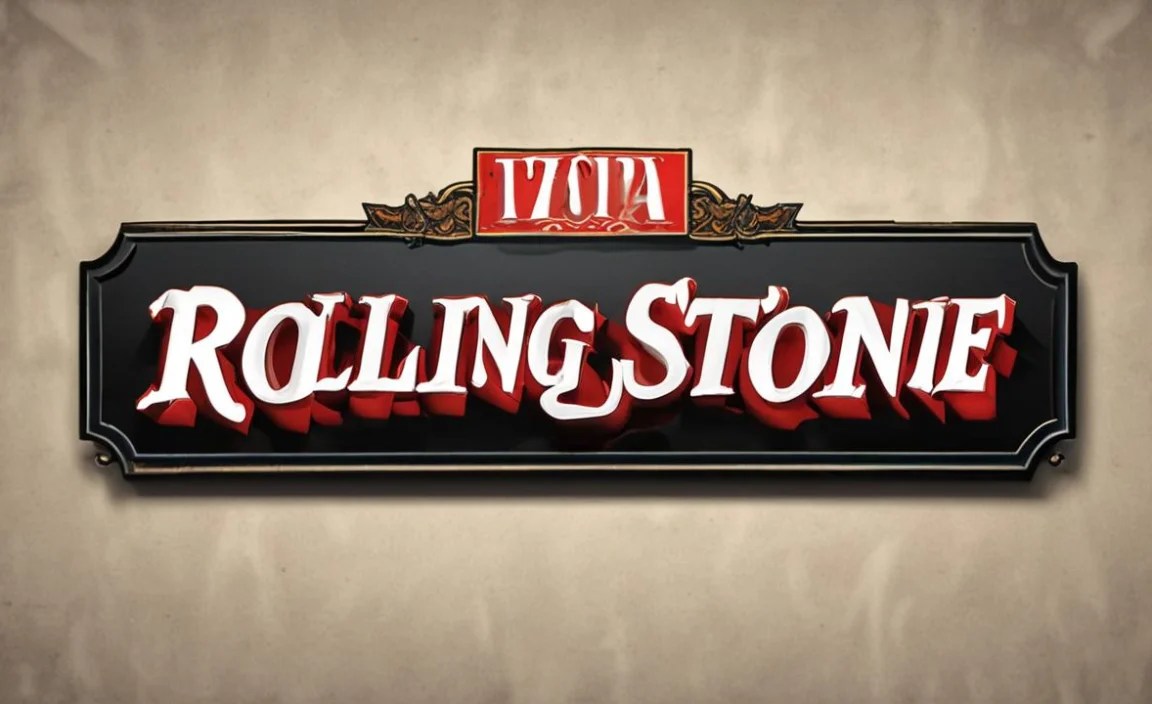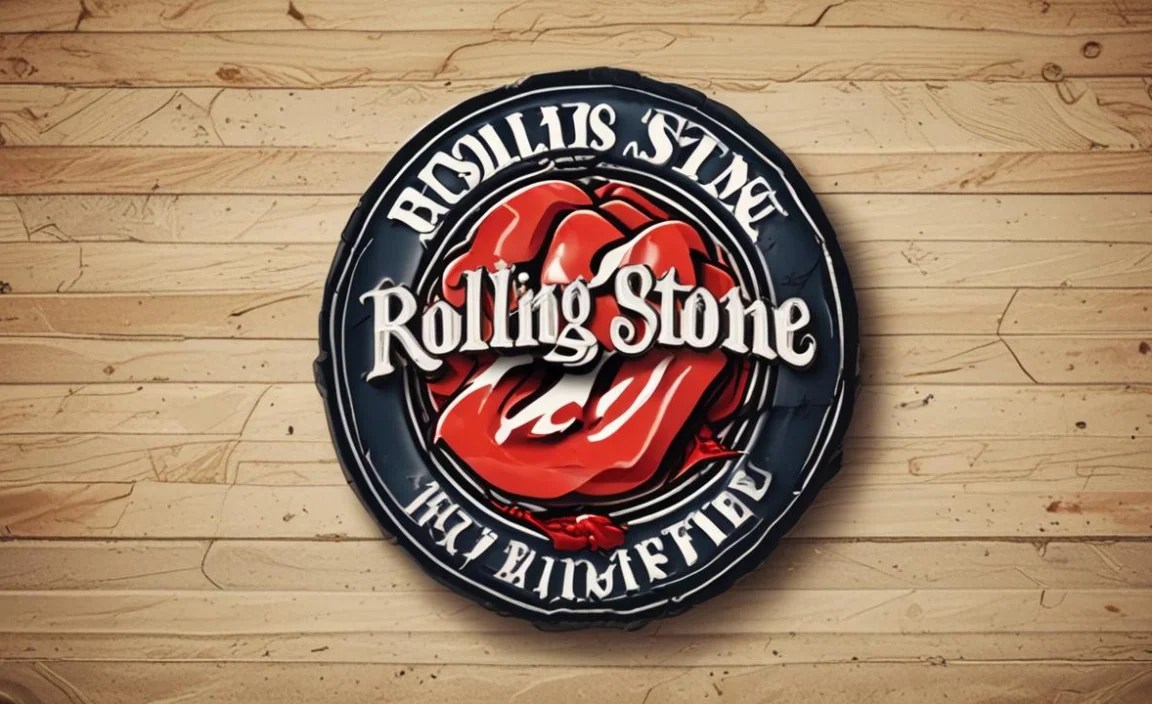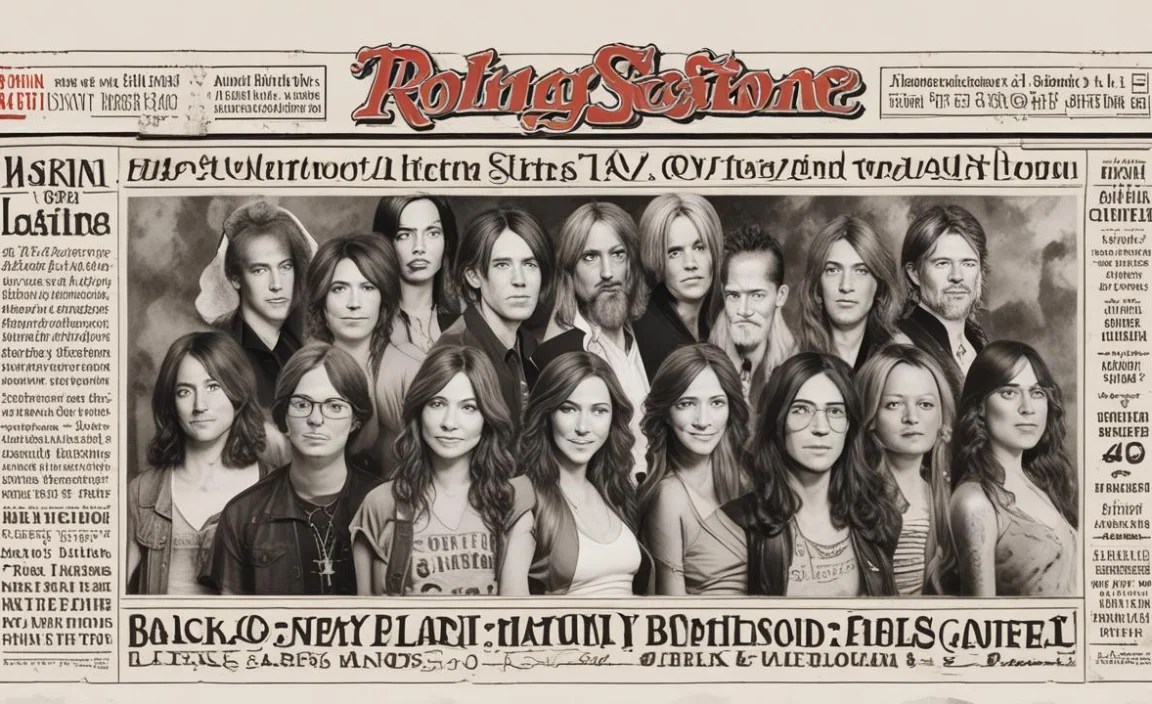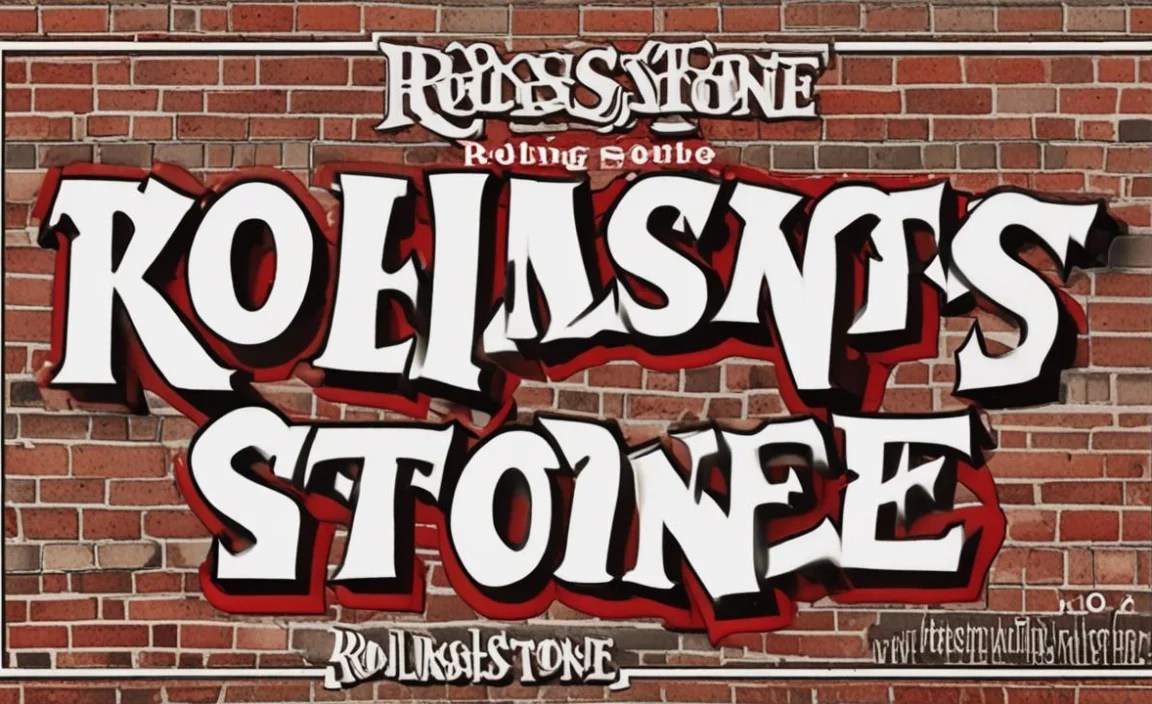
The Rolling Stone font is iconic and instantly recognizable, capturing the essence of rock and roll with its bold, decorative design. It features curled lettering, which embodies the rebellious and artistic spirit of the 1960s and beyond.
Often associated with the famous music magazine Rolling Stone, this font style has become a symbol of music, culture, and a countercultural movement. Whether you’re designing a logo, a poster, or a retro-themed project, the Rolling Stone font brings a unique and memorable flair.
| Name | Rolling Stone (Royal Acidbath) |
| Style | Display |
| Designer | Sharkshock |
| Type | Hand-lettered Script |
Rolling Stone Font’s Family Includes
- Royal Acidbath Regular
- Royal Acidbath Bold
- Royal Acidbath Italic
- Royal Acidbath Bold Italic
- Royal Acidbath Condensed
- Royal Acidbath Condensed Bold
Where Rolling Stone Font Is In Use
The Rolling Stone font is ideal for projects that need to evoke a sense of nostalgia, music, and counterculture. Its distinctive style makes it suitable for a variety of design applications. Notable uses include:
- Magazine masthead
- Article headlines
- Cover titles
- Merchandise
- Promotional materials
- Website headers
- Social media graphics
- Event branding
- Album reviews
- Music charts and lists
Rolling Stone Font FAQs
1. When Was The Rolling Stone Font Introduced?
The Rolling Stone logo, which inspired the Rolling Stone font, was designed by Rick Griffin in 1967, coinciding with the launch of the magazine. The font has since been iconic and enduring, influencing many similar typeface designs.
2. What Free Font Is Closest To Rolling Stone Font?
While the exact Rolling Stone font is proprietary, “Royal Acidbath” by Sharkshock is often considered a close alternative. Other free alternatives that offer a decorative and bold script style may include fonts like “Lobster” and “Pacifico.
3. What Are The Different Versions Of Rolling Stone Font?
Fonts inspired by the Rolling Stone logo often come in various styles, including solid, outline, and shadow effects. These variations cater to different design needs, allowing for versatile usage across different projects.